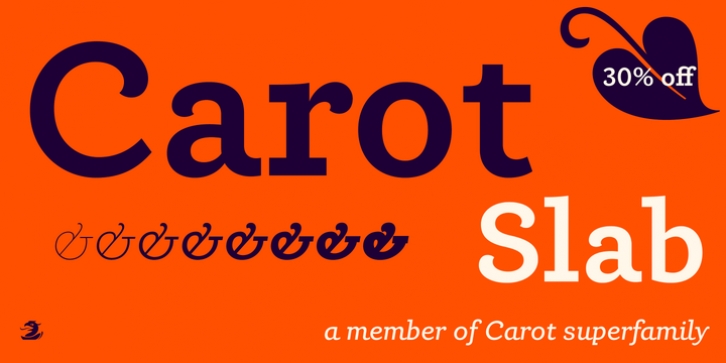
Carot Slab was designed by František Štorm and published by Storm Type Foundry. Carot Slab contains 16 styles and family package options. The font is currently #45 in Hot New Fonts.
Words in a blurry world want to be more firmly anchored in the line - this is the task of the Slab-serif, characterized by solid heels. They can be used in extreme sizes – under 6 points – as well as on huge tarpaulins covering trucks, boats and house facades. Carot serves its robust clarity. The eye takes a while to become accustomed to various character simplifications, but then comes a refreshing reading perception, familiar texts get actual sound.
The whole Carot system of 64 members offers a modern alternative for all types of design work.